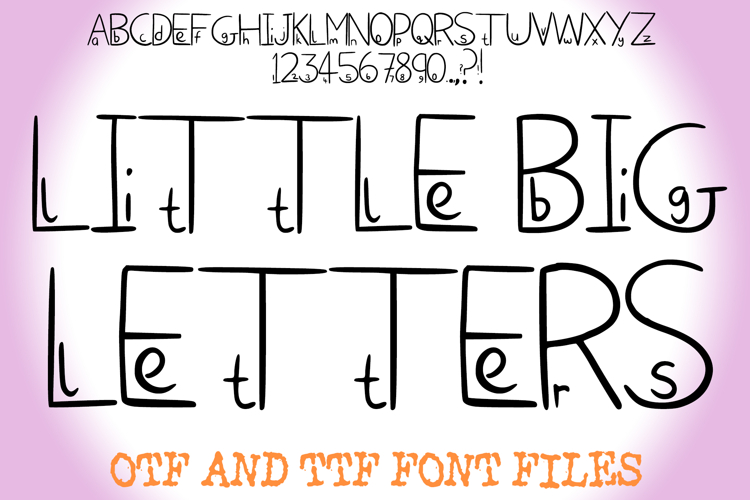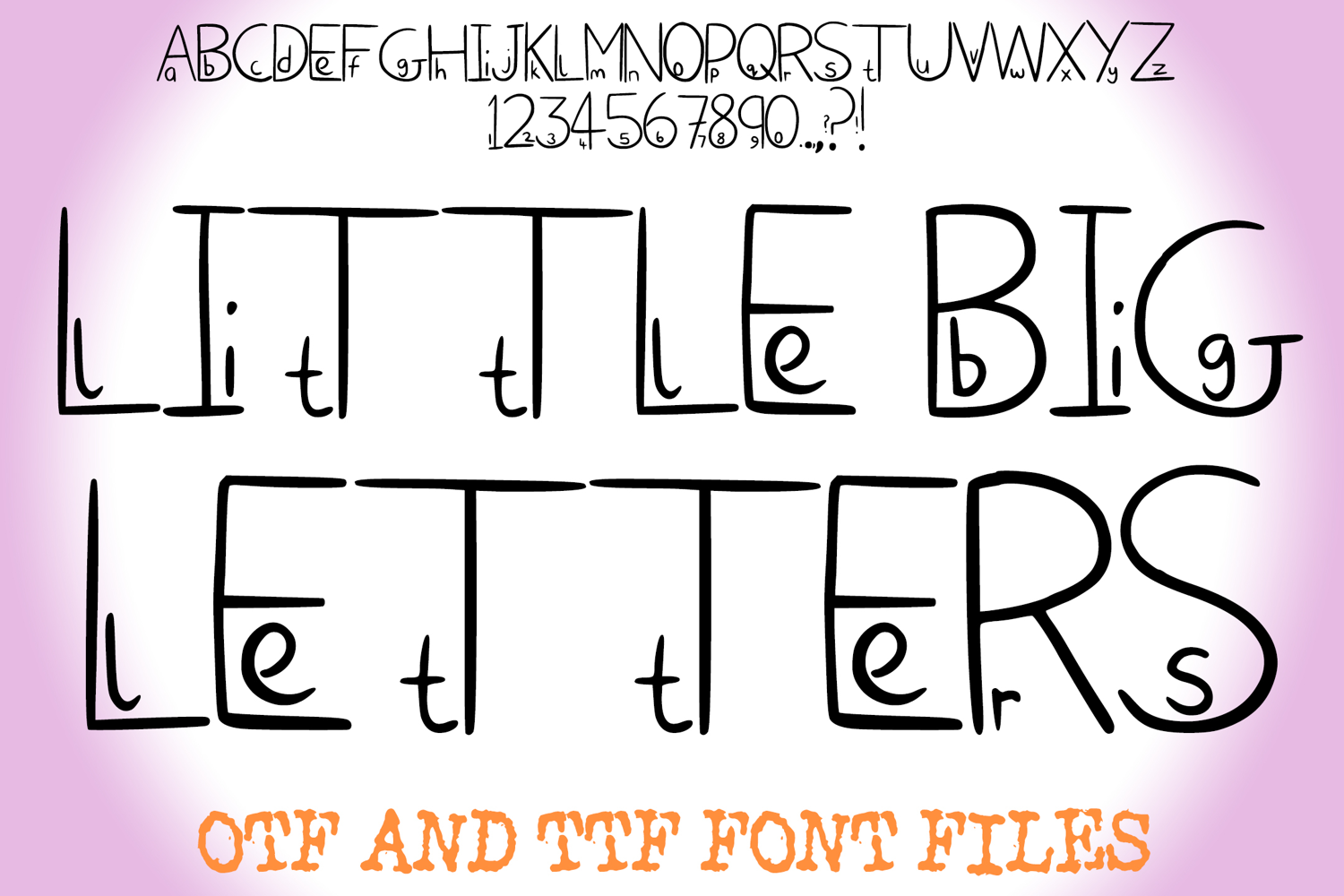
Give your typography a double dose of personality with Little Big Letters Font! This one-of-a-kind display typeface features a creative "nested" design where a small lowercase letter is tucked neatly inside or alongside its uppercase counterpart.
This hand-drawn font is perfect for creators looking for something truly original. It captures a whimsical, doodled aesthetic that makes every word look like a custom piece of art. With its clean lines and playful character placement, Little Big Letters is highly legible while remaining incredibly fun to look at.